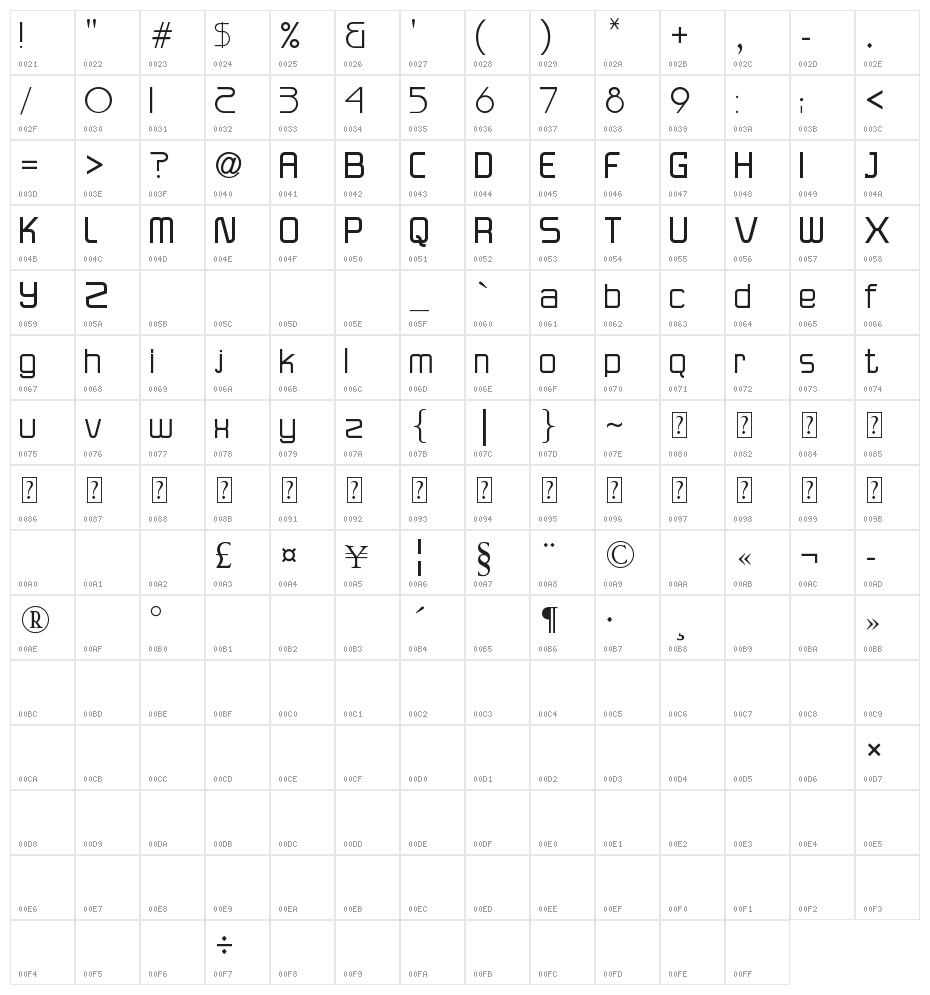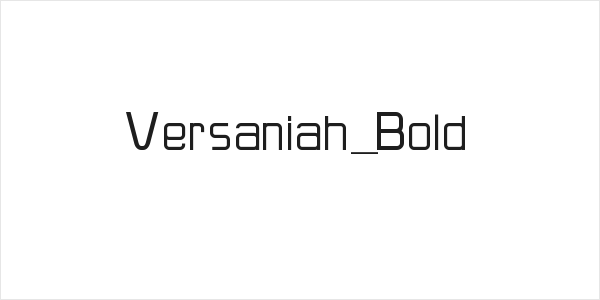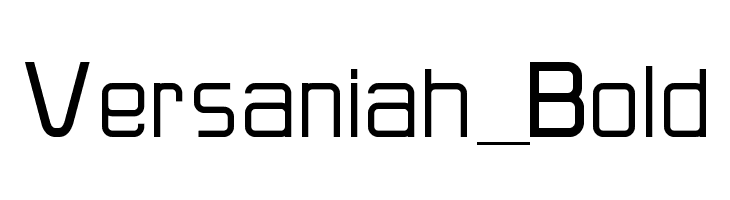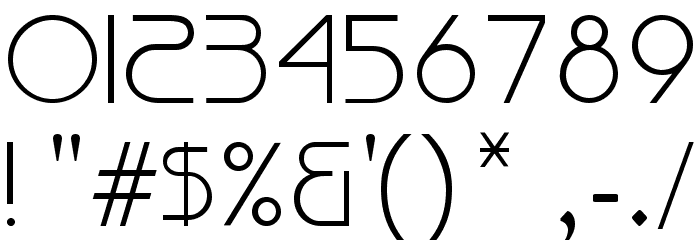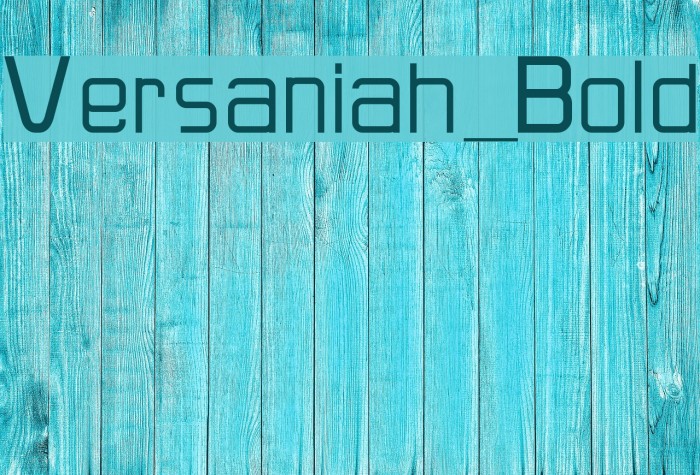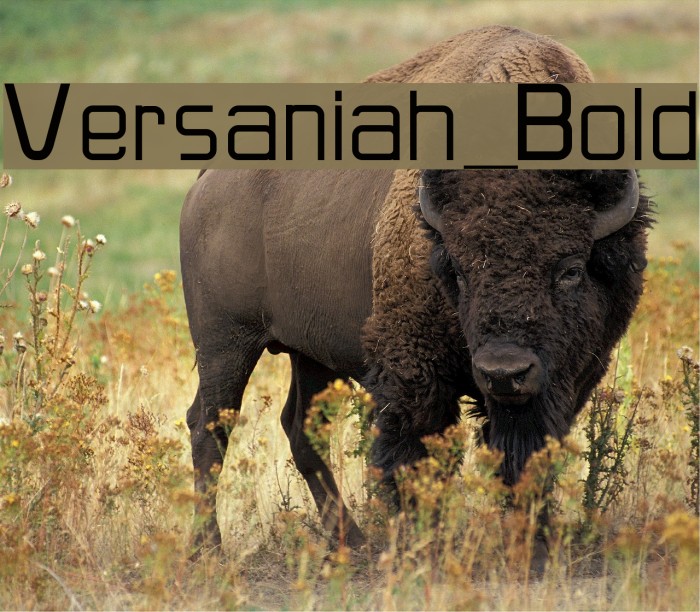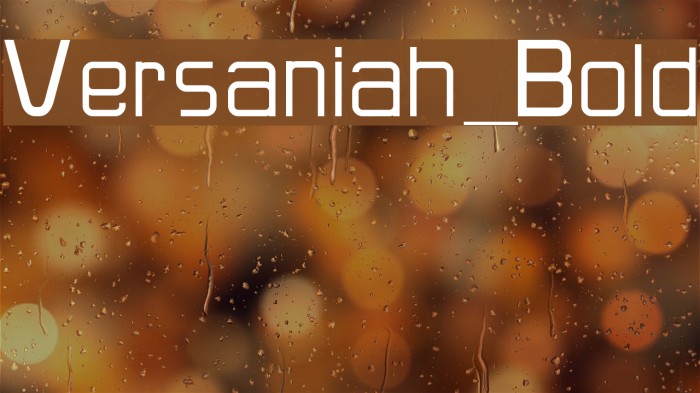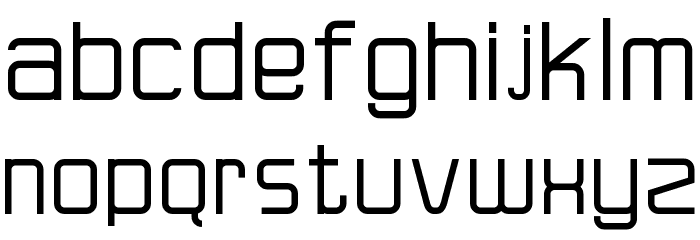
Versaniah_Bold Font
Versaniah_Bold Description
This font features a modern, geometric sans-serif style with clean lines and a uniform stroke width. The characters are well-proportioned, offering a balanced and contemporary appearance. Uppercase letters are bold and assertive, while lowercase letters maintain a consistent flow, enhancing readability. The numerals are distinct and clear, making them suitable for various applications. Special characters are designed with the same geometric precision, ensuring a cohesive look across all glyphs. The overall design is versatile, making it ideal for both digital and print media.
| Use Case | Headlines, Logos, Digital Media |
| Proposed Projects | Ideal for branding, advertising, web design, and editorial layouts. |